Today, I would like to introduce “Table of Characters,” written by Kyoko Masaki.
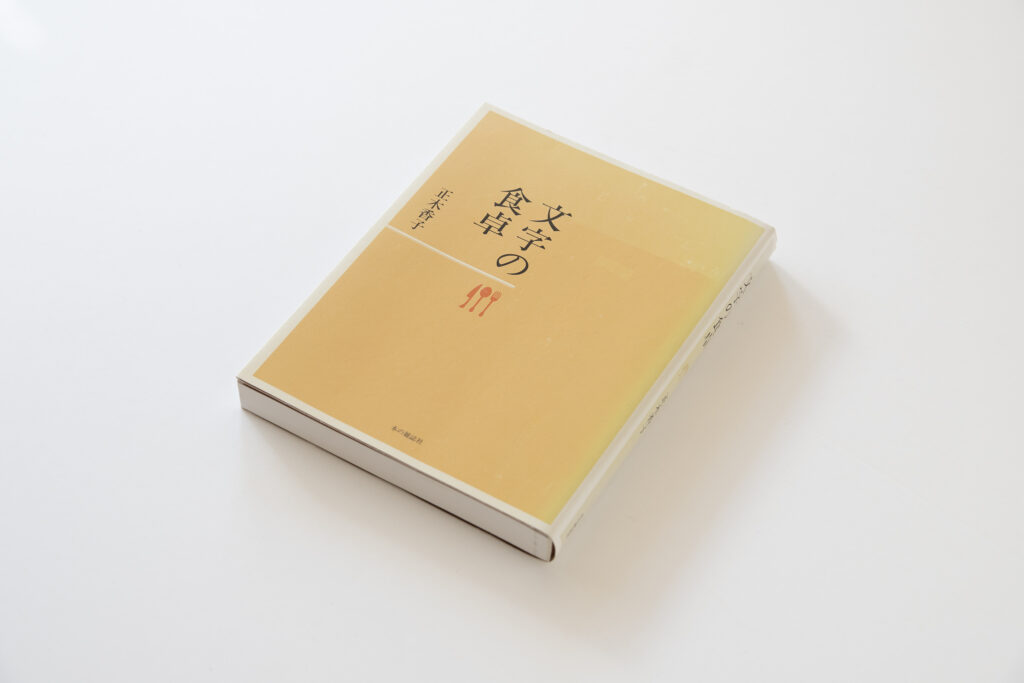
This is a collection of essays in which the full flavor of typesetting and typeface mainly experienced by the author is written about, along with her memories. The uniqueness of this book is that each typeface is introduced with an analogy related to food. For the explanation of each typeface, examples such as books, magazines, manga, etc., are printed along with the creation background of the typeface, so it can also be read and enjoyed as a sample book of typefaces.
I think it is quite difficult to convey the impressions of typefaces in words. However, due to the author’s observations of typefaces through her rich sensibilities and the explanation with easy-to-understand analogies related to food, such as “freshly cooked rice,” “caramel,” “coffee,” etc., the book can be read sensually without having to think about anything difficult. Among the 39 typefaces introduced in the book, I found some typefaces I’ve seen in places before and related with the author’s sensibilities or found I had opinions of my own, and continued reading the book thinking about the time I first saw that typeface. This book is recommended for those who like reading and have a lot of contact with text, in particular.